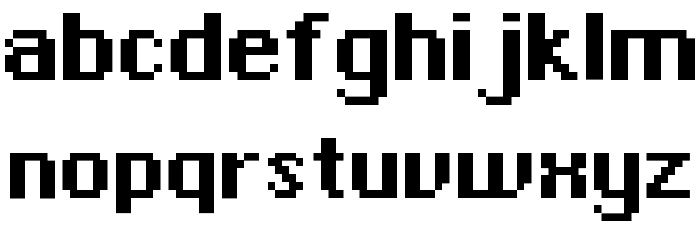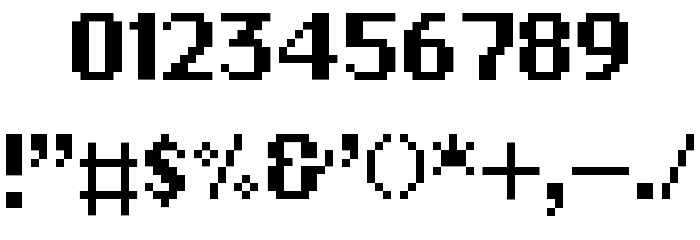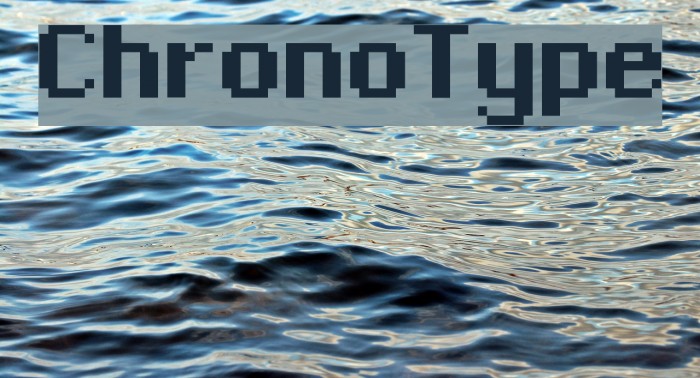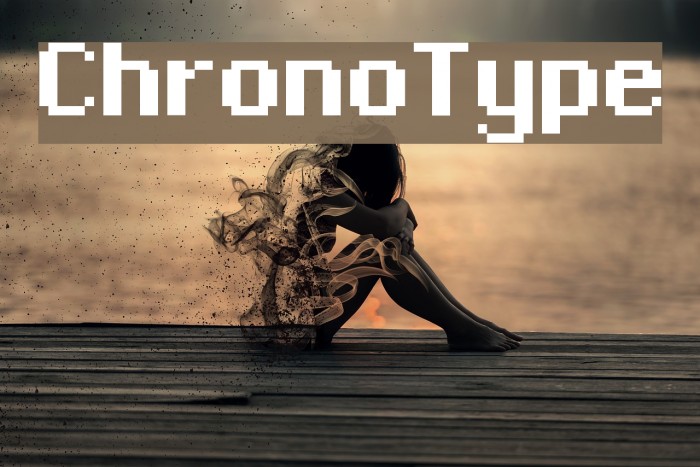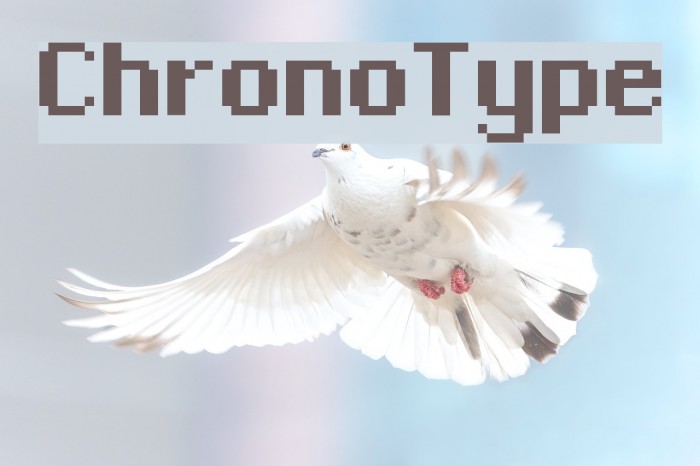
ChronoType Font
This font features a pixelated, blocky design reminiscent of early digital displays and retro video games. Each character is constructed with a uniform grid-like structure, giving it a distinct, nostalgic appearance. The uppercase and lowercase letters maintain a consistent height, contributing to a cohesive visual style. Numbers and special characters follow the same pixelated pattern, ensuring uniformity across all glyphs. The font's simplicity and geometric precision make it ideal for projects that aim to evoke a sense of nostalgia or a retro-futuristic aesthetic. Its clear and bold presentation ensures readability, even at smaller sizes, while the unique style adds character and charm.
A pixelated, retro-style font with a blocky, digital appearance.
- Proposed Projects: Ideal for retro video game graphics, digital art projects, and nostalgic branding.
- Overall Style: Retro, Digital
- Use Case: Logos, Headlines, Digital displays